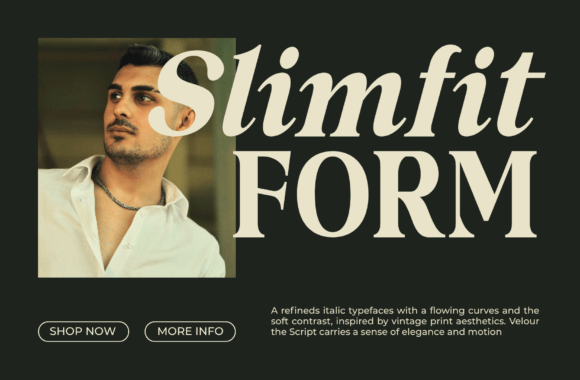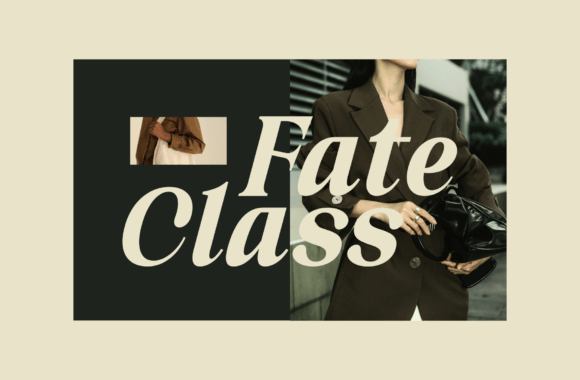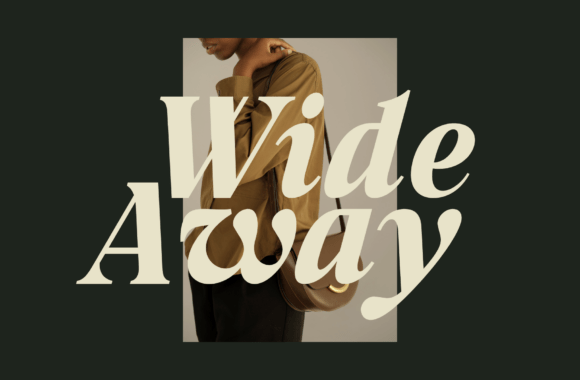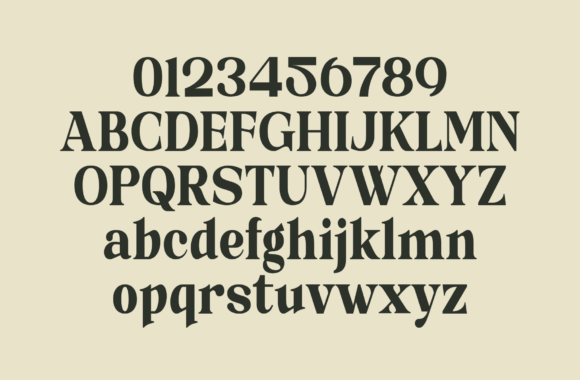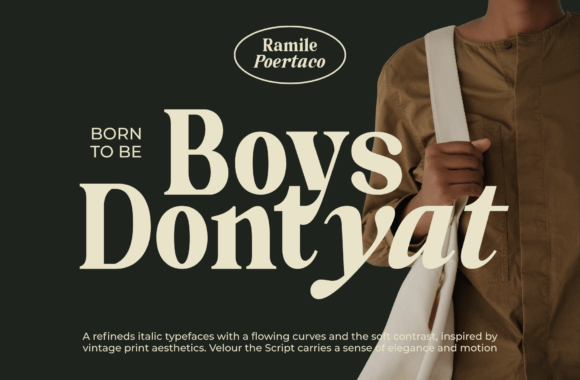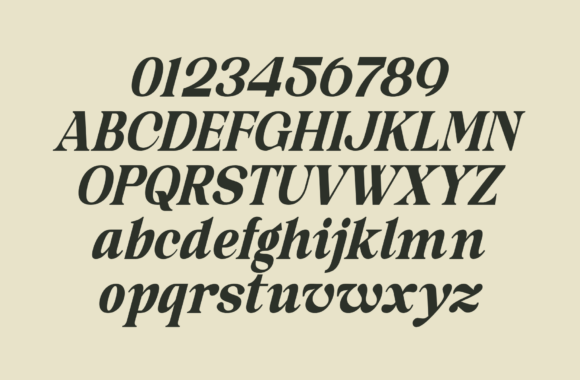
Introducing Glide Orwate: The Epitome of Elegance in Editorial Serif Typography
In the realm of typography, few fonts manage to convey the perfect blend of modern sophistication and classic elegance. Glide Orwate, however, stands out as a beacon of refinement, designed specifically to infuse a touch of luxury and high-end style into your creative projects. This editorial serif typeface is meticulously crafted to embody the essence of modern fashion, making it an ideal choice for designers and crafters aiming to elevate their work with a dash of class and professionalism.
The Design Philosophy Behind Glide Orwate
Glide Orwate’s design is rooted in the principles of elegance and readability. Its smooth curves and high-contrast strokes are not merely aesthetic choices but are deliberate design elements that contribute to its luxurious feel. Each letterform is carefully sculpted to exude a sense of refinement and poise, making it perfectly suited for applications where making a statement is paramount. Whether it’s for a fashion brand looking to redefine its identity or a craftsman seeking a sophisticated look for their premium products, Glide Orwate offers a versatile solution.
Key Features of Glide Orwate
- Smooth Curves and High-Contrast Strokes: These features are central to Glide Orwate’s luxurious aesthetic, providing a fluid and elegant appearance that captures the eye.
- Stylish Letterforms: Each character in Glide Orwate is designed with a distinct personality, ensuring that your designs stand out while maintaining a cohesive and sophisticated look.
- Excellent Readability: Despite its elegant design, Glide Orwate does not compromise on readability, making it suitable for a wide range of applications, from magazine headlines to detailed editorial content.
- Versatility: Glide Orwate can be used across various mediums, including editorial layouts, logos, premium packaging, wedding invitations, and social media content, offering designers a flexible tool for their creative arsenal.
Applications of Glide Orwate
The versatility of Glide Orwate makes it an invaluable asset for designers working on a variety of projects. Here are some of the key areas where Glide Orwate can make a significant impact:
- Fashion Branding: Elevate your fashion brand with a sophisticated look that resonates with luxury and elegance.
- Luxury Logos: Create memorable logos that capture the essence of your premium brand or product.
- Wedding Invitations: Add a touch of class and romance to your wedding invitations, setting the tone for a memorable event.
- Stylish Social Media Content: Stand out on social media with elegant and engaging content that reflects your brand’s high-end aesthetic.
Why Choose Glide Orwate?
In a market flooded with typefaces, Glide Orwate distinguishes itself through its unique blend of modern elegance and timeless class. Here are a few reasons why designers and crafters are gravitating towards this refined editorial serif typeface:
- Timeless Appeal: Glide Orwate’s classic design ensures that your work remains relevant and stylish for years to come.
- Professionalism: The font’s sophisticated look lends a professional edge to any project, enhancing its perceived value.
- Personality: With its distinctive character shapes, Glide Orwate allows designers to imbue their projects with a unique personality.
In conclusion, Glide Orwate is more than just a typeface; it’s a design statement. Its elegant curves, stylish letterforms, and versatile nature make it an indispensable tool for anyone looking to add a touch of sophistication and luxury to their creative projects. Whether you’re a seasoned designer or a craftsman with a keen eye for detail, Glide Orwate offers the perfect blend of form and function to elevate your work to new heights of elegance and professionalism.